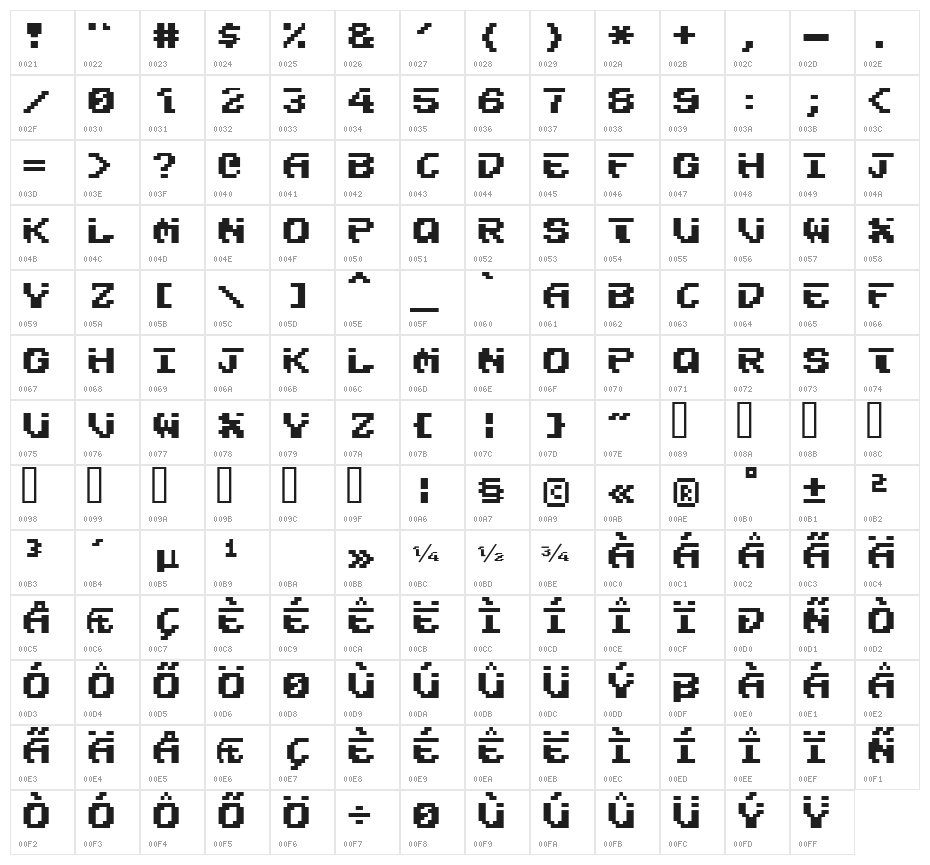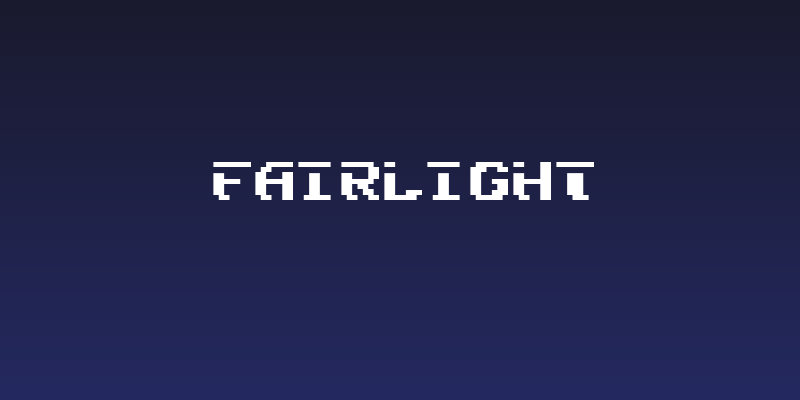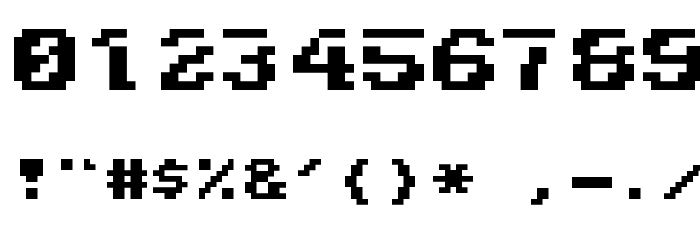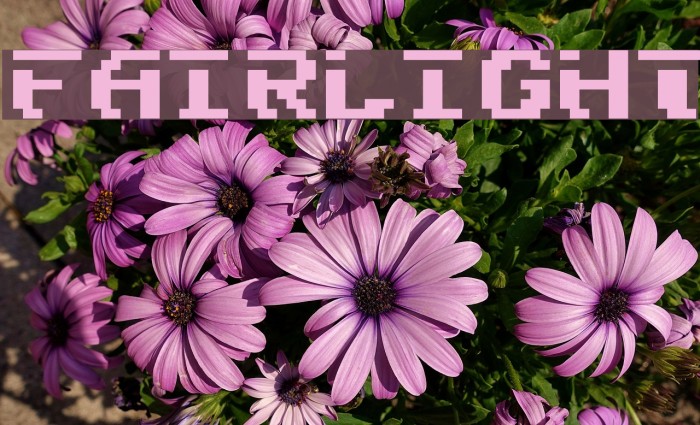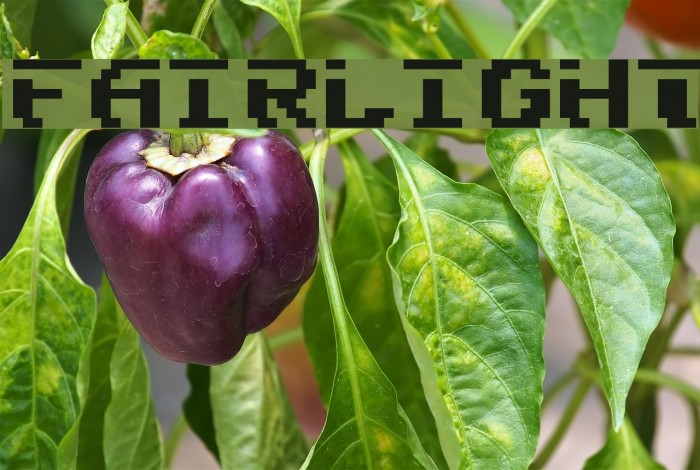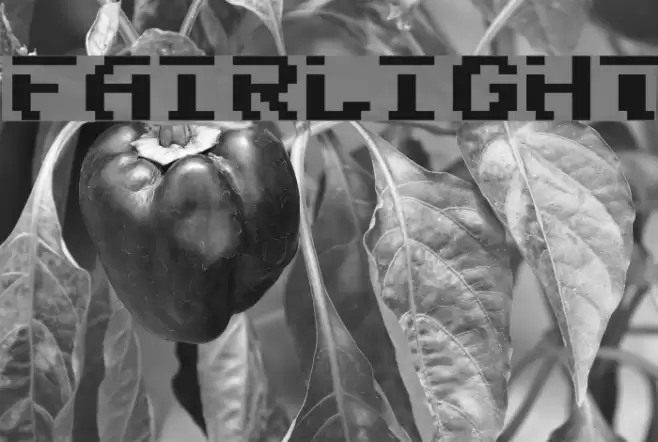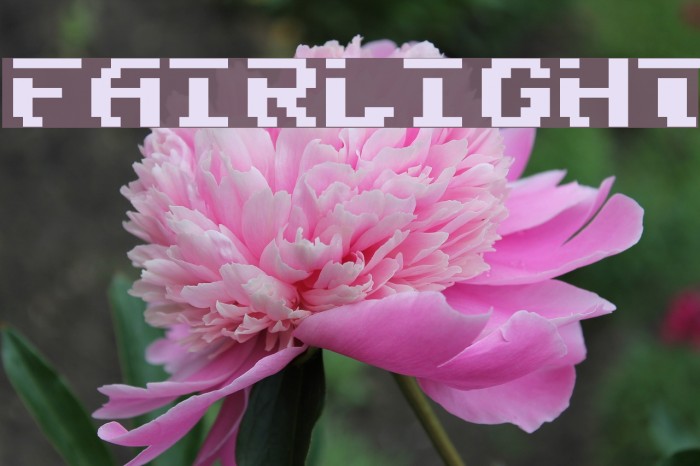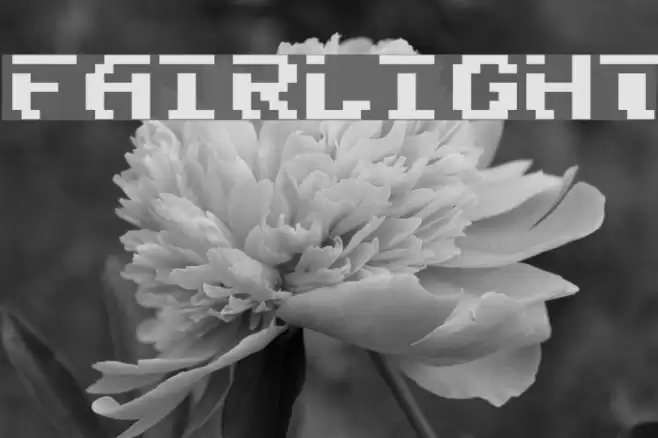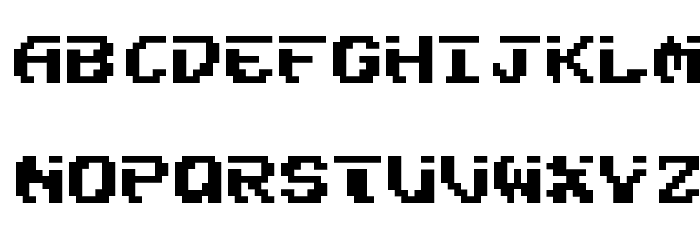
Fairlight Font
Fairlight Description
This font showcases a distinct pixelated style reminiscent of early digital displays and retro gaming aesthetics. Each character is constructed with a blocky, grid-like appearance, emphasizing a strong geometric form. The uppercase and lowercase letters maintain a consistent height, contributing to a monospaced feel, although the actual spacing varies slightly. Numbers and special characters follow the same design principles, ensuring uniformity across all glyphs. The overall look is bold and impactful, making it ideal for projects that require a nostalgic or tech-inspired theme. Despite its boldness, the font maintains legibility, with clear differentiation between similar characters.
| Overall Style | Retro, Digital |
| Proposed Projects | Ideal for retro video games, tech-themed posters, digital art projects, and any design requiring a nostalgic digital feel. |